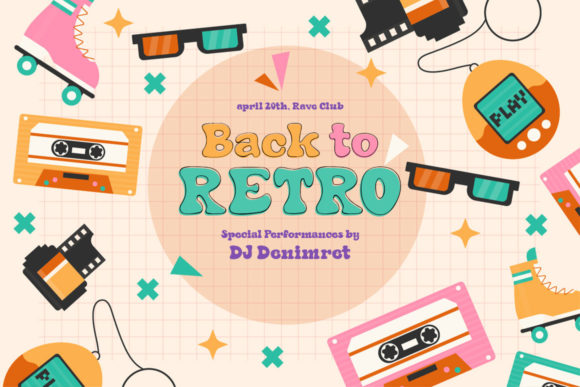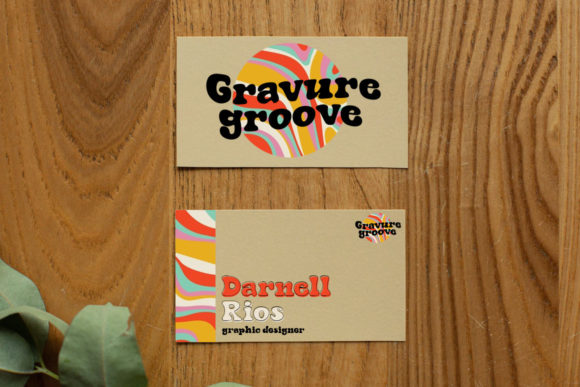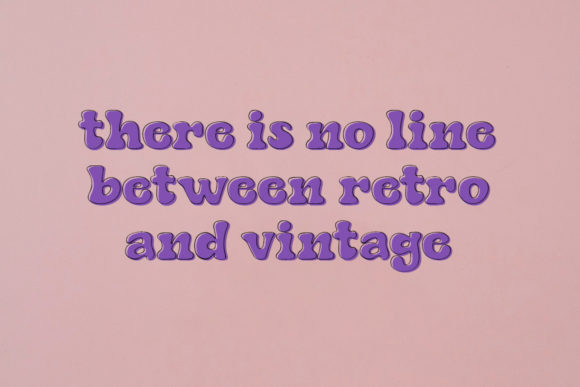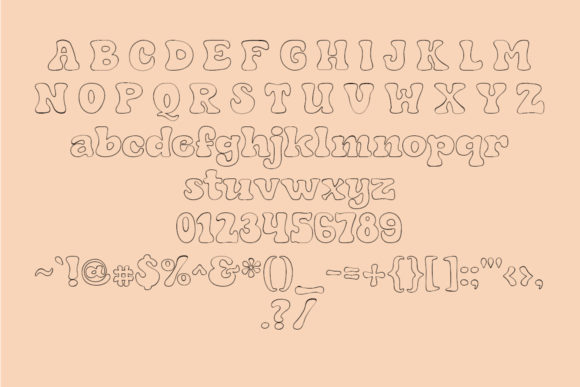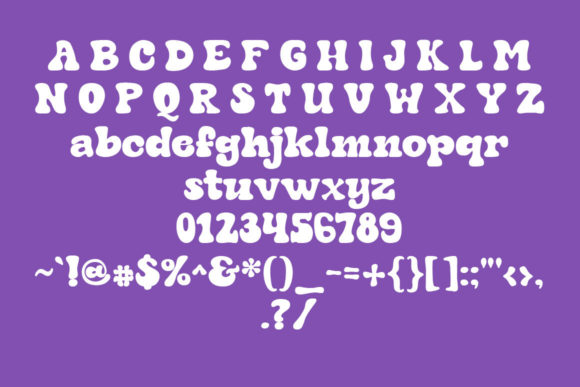
The Perfect Vintage Touch: Unleashing the Magic of Dilofa Font
Have you ever found yourself browsing through a thrift store, rummaging through old trunks, or flipping through vintage magazines, and suddenly, a spark of inspiration hits you? That’s exactly what happened to designers and creatives around the world when they stumbled upon the enchanting Dilofa Font. This charming, cool, and chic display font has been captivating hearts with its vintage styled elegance, making it a go-to choice for a wide range of creative projects.
Whether you’re crafting a unique greeting card, designing a digital presentation, or working on a special project that requires a touch of nostalgia, Dilofa Font is the perfect companion. Its versatility and timeless appeal make it a valuable asset for designers who want to add a vintage twist to their work. With Dilofa Font, you can create stunning visual effects that transport your audience to a bygone era.
Dilofa Font Key Features
- Font Family: Dilofa Font is a custom-designed font family, offering a range of styles and weights to cater to various design needs.
- Unique Characteristics: Dilofa Font features a unique blend of modern and traditional design elements, making it suitable for a wide range of applications, from corporate branding to editorial content.
Dilofa Font Review
I recently had the chance to work with the Dilofa font, and I must say it’s a unique and interesting addition to any design project. ✨ Here are some things that I think work well:
- Highly legible even at smaller font sizes
- Good for titles and headings due to its large x-height
- Unique, modern aesthetic that can add a touch of sophistication to a design
However, like any font, Dilofa also has its limitations. ⚠️ Here are a few things to keep in mind:
- Not ideal for body text due to its relatively large size and unusual letterforms
- May be difficult to read for users with visual impairments
- Not suitable for large blocks of text due to its high x-height
Overall, I think the Dilofa font is a great addition to any design project where you want to make a statement. It’s perfect for titles, headings, and other design elements where you want to add some visual interest. Just be mindful of its limitations and use it judiciously.
Tips for Getting the Most Out of Dilofa Font
For the best results, use Dilofa Font in headings and titles to create a bold and eye-catching effect.
Experiment with different font sizes and styles to add visual interest to your designs.
Dilofa Font is ideal for:
- Marketing materials and advertisements
Q: Does the Dilofa Font include any special features or support?
The Dilofa Font includes support for ligatures, stylistic sets, and Opentype features such as contextual alternates and swashes. This allows designers to create complex and nuanced typography that adds depth and character to their work. Additionally, the font includes a range of weights and styles, making it easy to find the perfect fit for your project.